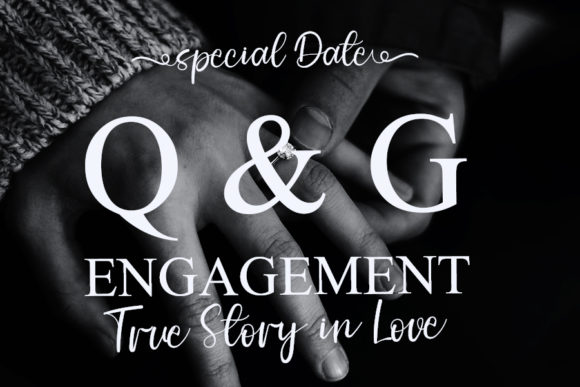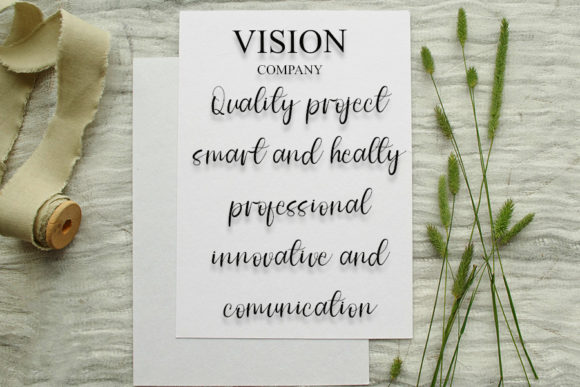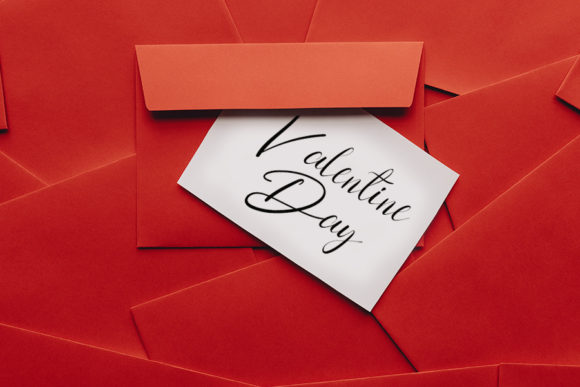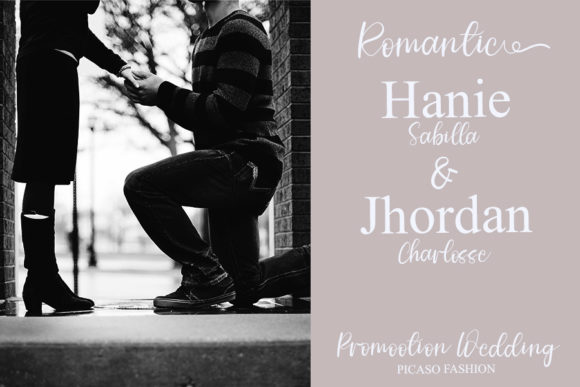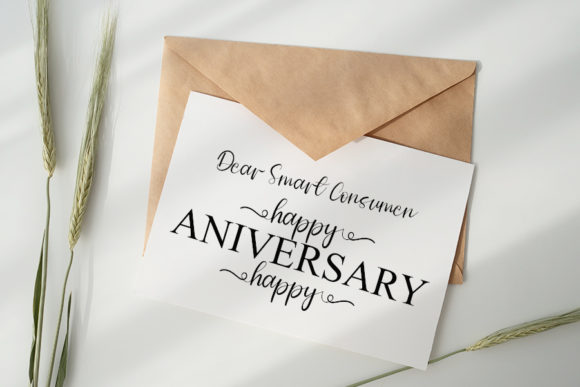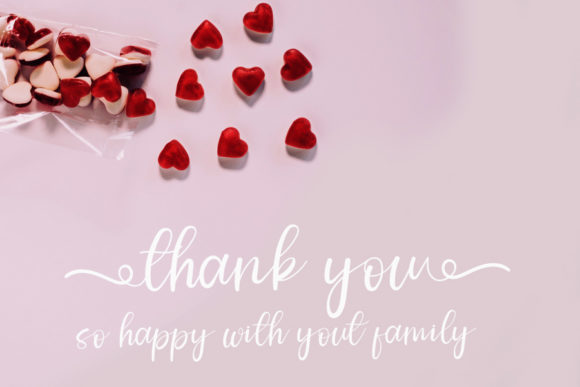
Xatallia Font
About Xatallia Font
Xatallia is an elegant script font, that features a very delicate and classy look. Not too thin and not too thick, balanced and varied, this font was designed to enhance the beauty of your projects. This font is PUA encoded which means you can access all of the glyphs and swashes with ease!